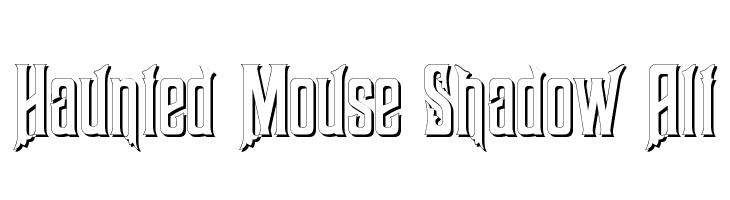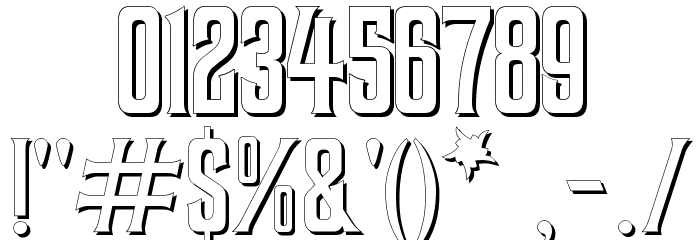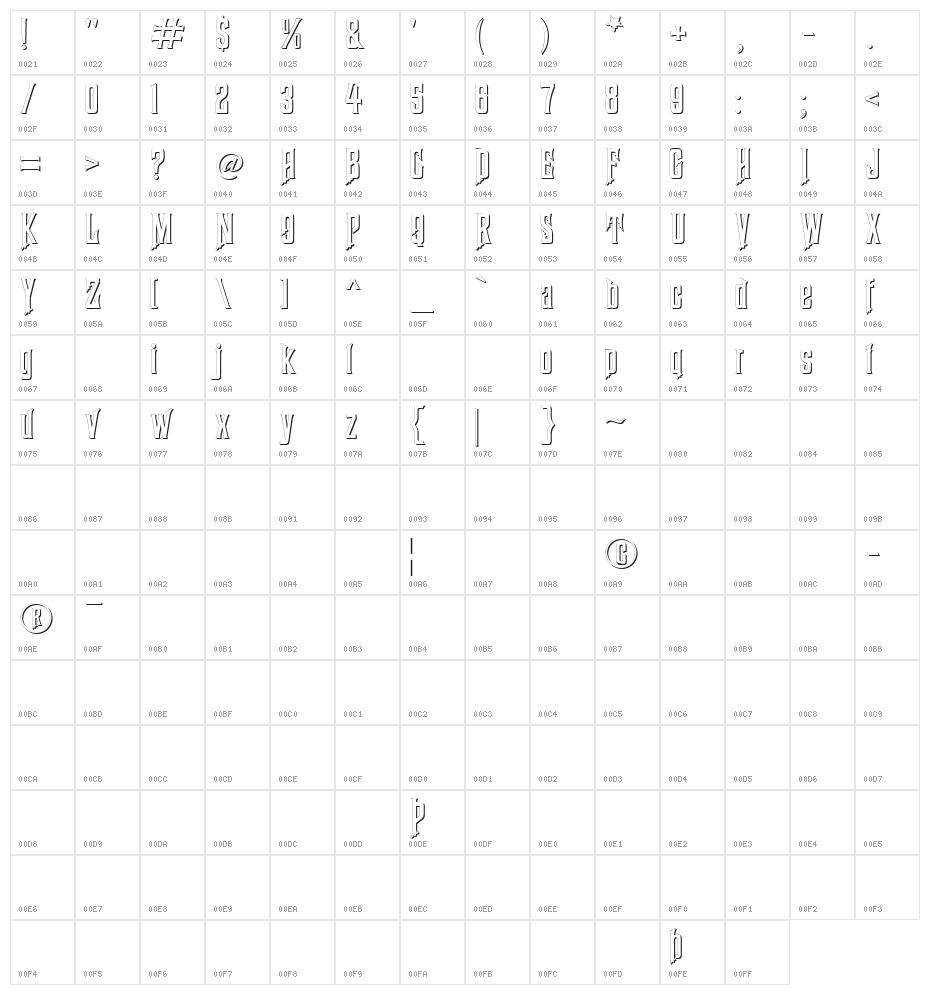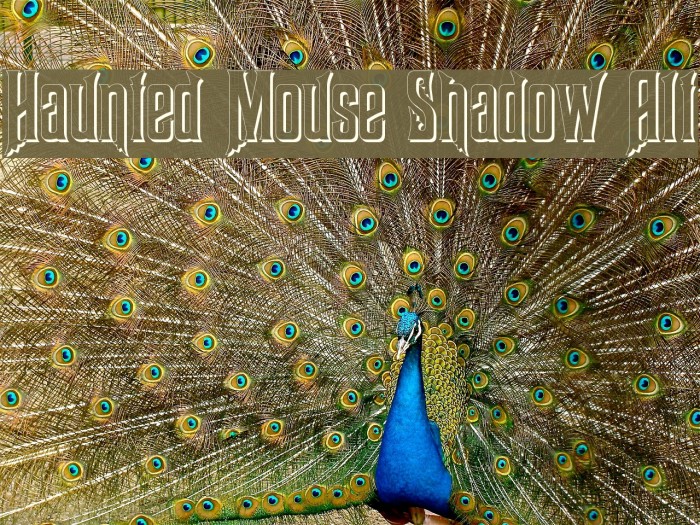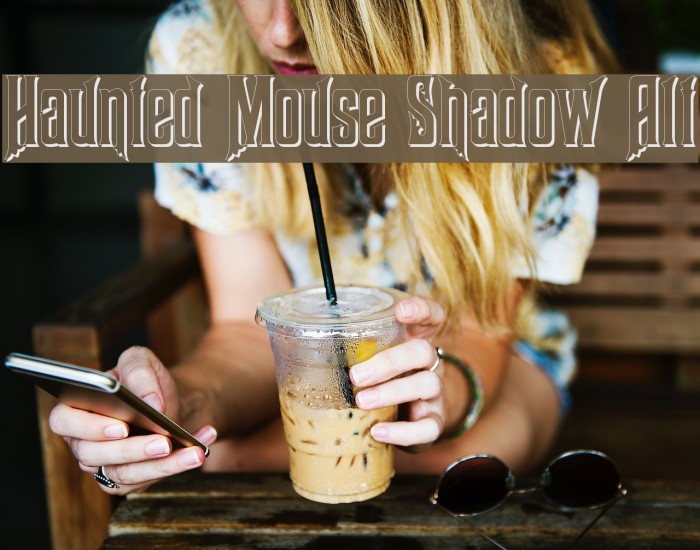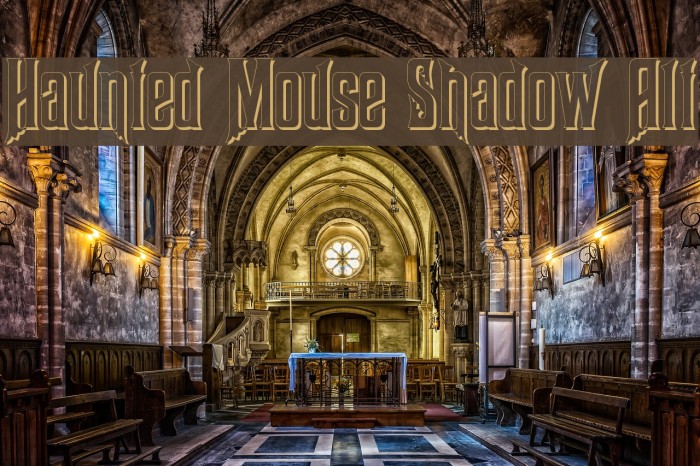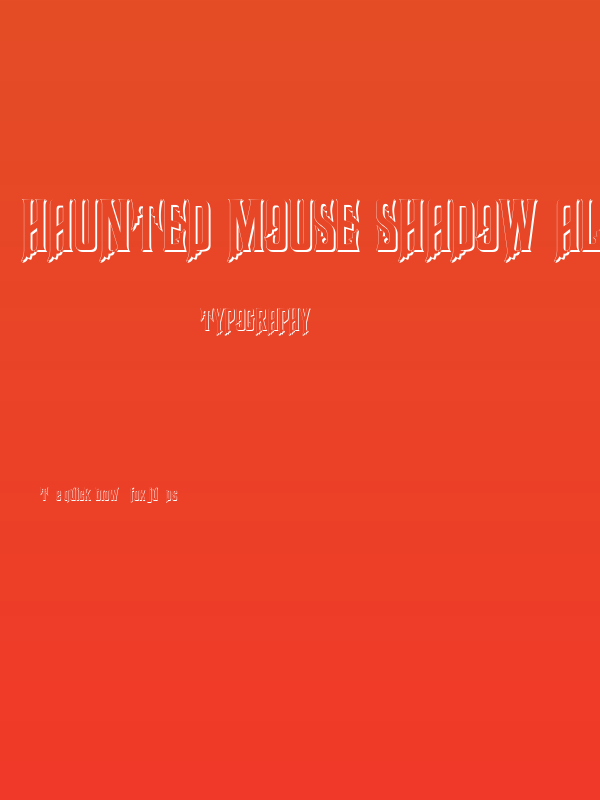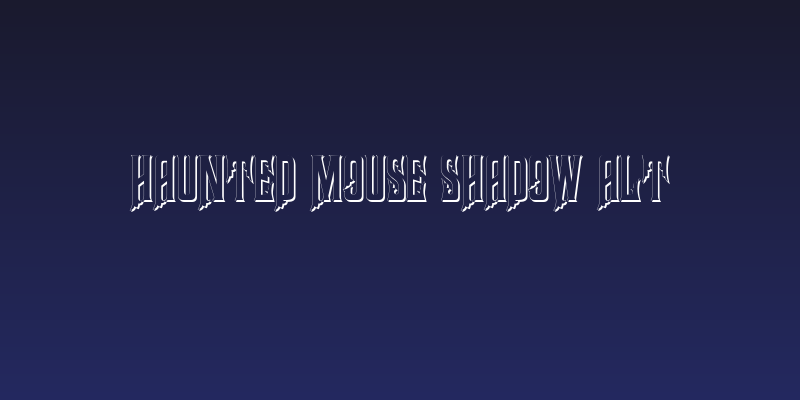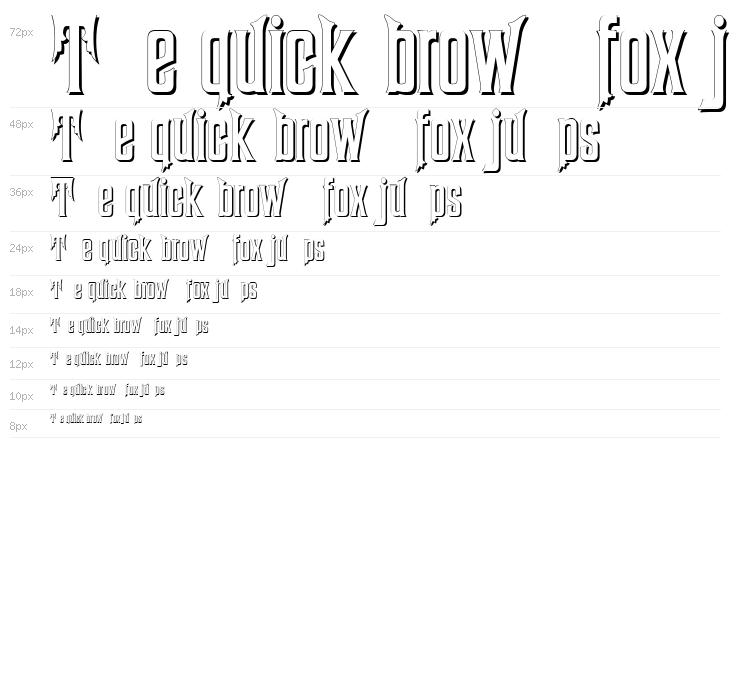
Haunted Mouse Shadow Alt Font
Haunted Mouse Shadow Alt Description
This font features a bold and dramatic style with a shadow effect that adds depth and dimension. The characters are adorned with bat-like embellishments, giving it a spooky and haunted appearance. The uppercase and lowercase letters maintain a consistent design, with sharp edges and pointed serifs that enhance its gothic aesthetic. The numbers and special characters follow the same thematic elements, making it a cohesive set. The font's unique style makes it ideal for Halloween-themed projects or any design requiring a mysterious and eerie touch.
| Overall Style | Gothic, Spooky, Decorative |
| Use Case | Headlines, Posters, Themed Events |
| Proposed Projects | Ideal for Halloween invitations, haunted house posters, spooky event flyers, and themed merchandise. |